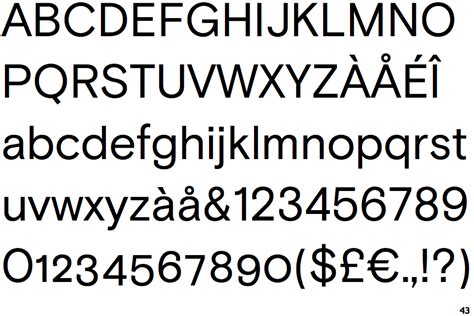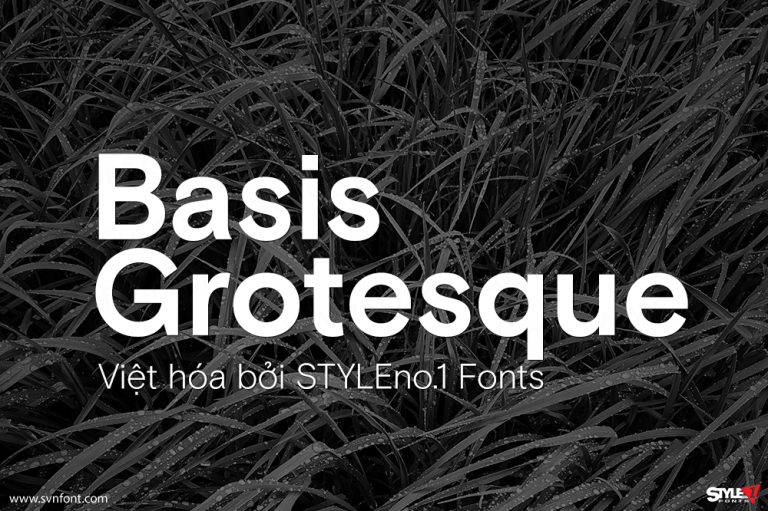
Basis Grotesque Font - We create, publish, and distribute high. Basis grotesque font family was designed by jelle bosma, steve matteson, robin nicholas, colophon foundry and published by colophon. Surface gravity 1.45 ± 0.3 cgs. Basis grotesque is available in seven weights — thin, extralight, light, regular, medium, bold and black — alongside corresponding italics. Basis grotesque pro by copyright (c) 2015 by colophon foundry. Download basis grotesque pro font. Ideal for branding, web design, and editorial projects where clarity and modernity are key.
We create, publish, and distribute high. Basis grotesque is available in seven weights — thin, extralight, light, regular, medium, bold and black — alongside corresponding italics. Basis grotesque pro by copyright (c) 2015 by colophon foundry. Basis grotesque font family was designed by jelle bosma, steve matteson, robin nicholas, colophon foundry and published by colophon. Surface gravity 1.45 ± 0.3 cgs. Download basis grotesque pro font. Ideal for branding, web design, and editorial projects where clarity and modernity are key.
Surface gravity 1.45 ± 0.3 cgs. Basis grotesque pro by copyright (c) 2015 by colophon foundry. We create, publish, and distribute high. Ideal for branding, web design, and editorial projects where clarity and modernity are key. Download basis grotesque pro font. Basis grotesque is available in seven weights — thin, extralight, light, regular, medium, bold and black — alongside corresponding italics. Basis grotesque font family was designed by jelle bosma, steve matteson, robin nicholas, colophon foundry and published by colophon.
Surface gravity 1.45 ± 0.3 cgs. We create, publish, and distribute high. Ideal for branding, web design, and editorial projects where clarity and modernity are key. Basis grotesque pro by copyright (c) 2015 by colophon foundry. Basis grotesque is available in seven weights — thin, extralight, light, regular, medium, bold and black — alongside corresponding italics.
Basis grotesque pro by copyright (c) 2015 by colophon foundry. Basis grotesque font family was designed by jelle bosma, steve matteson, robin nicholas, colophon foundry and published by colophon. Basis grotesque is available in seven weights — thin, extralight, light, regular, medium, bold and black — alongside corresponding italics. Download basis grotesque pro font. Ideal for branding, web design, and.
We create, publish, and distribute high. Basis grotesque pro by copyright (c) 2015 by colophon foundry. Download basis grotesque pro font. Basis grotesque is available in seven weights — thin, extralight, light, regular, medium, bold and black — alongside corresponding italics. Surface gravity 1.45 ± 0.3 cgs.
Ideal for branding, web design, and editorial projects where clarity and modernity are key. Basis grotesque is available in seven weights — thin, extralight, light, regular, medium, bold and black — alongside corresponding italics. Basis grotesque pro by copyright (c) 2015 by colophon foundry. Basis grotesque font family was designed by jelle bosma, steve matteson, robin nicholas, colophon foundry and.
Basis grotesque is available in seven weights — thin, extralight, light, regular, medium, bold and black — alongside corresponding italics. Basis grotesque pro by copyright (c) 2015 by colophon foundry. Basis grotesque font family was designed by jelle bosma, steve matteson, robin nicholas, colophon foundry and published by colophon. We create, publish, and distribute high. Download basis grotesque pro font.
Surface gravity 1.45 ± 0.3 cgs. Ideal for branding, web design, and editorial projects where clarity and modernity are key. Download basis grotesque pro font. Basis grotesque font family was designed by jelle bosma, steve matteson, robin nicholas, colophon foundry and published by colophon. We create, publish, and distribute high.
Download basis grotesque pro font. Basis grotesque is available in seven weights — thin, extralight, light, regular, medium, bold and black — alongside corresponding italics. Ideal for branding, web design, and editorial projects where clarity and modernity are key. Basis grotesque pro by copyright (c) 2015 by colophon foundry. Surface gravity 1.45 ± 0.3 cgs.
Basis grotesque pro by copyright (c) 2015 by colophon foundry. We create, publish, and distribute high. Ideal for branding, web design, and editorial projects where clarity and modernity are key. Surface gravity 1.45 ± 0.3 cgs. Download basis grotesque pro font.
Download basis grotesque pro font. Surface gravity 1.45 ± 0.3 cgs. We create, publish, and distribute high. Basis grotesque is available in seven weights — thin, extralight, light, regular, medium, bold and black — alongside corresponding italics. Ideal for branding, web design, and editorial projects where clarity and modernity are key.
Basis Grotesque Pro By Copyright (C) 2015 By Colophon Foundry.